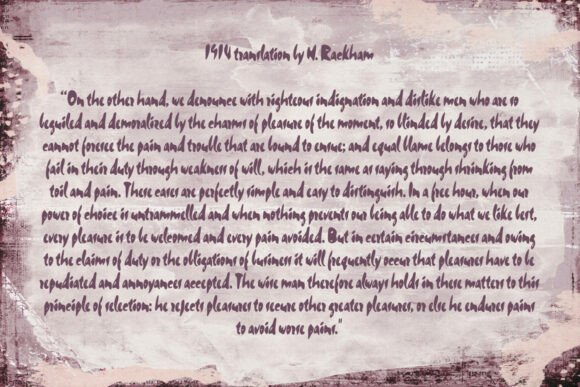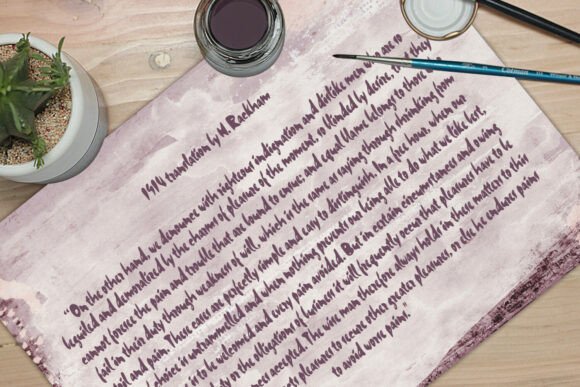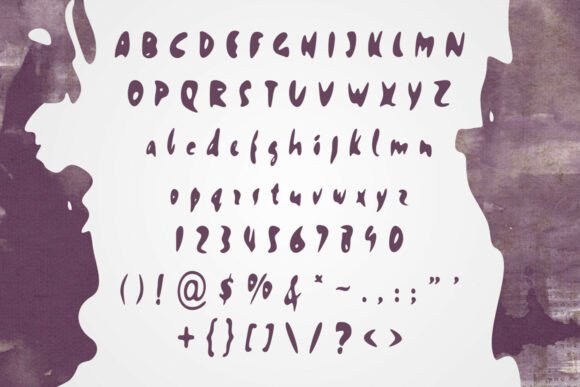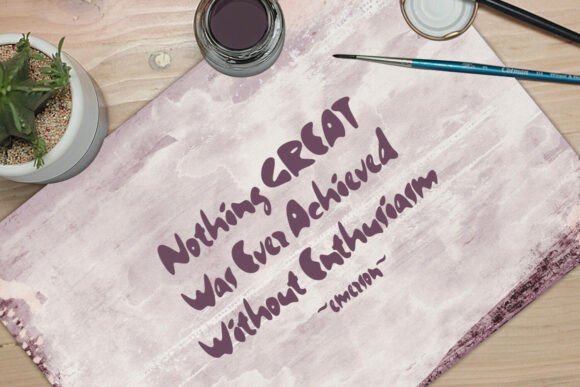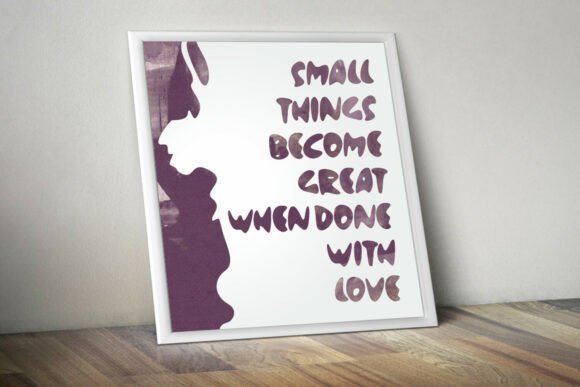
Introducing Bodyguard Font: The Ultimate Bold Display Font for Creative Projects
Are you tired of using the same old fonts for your designs? Look no further! We’re excited to introduce “Bodyguard” – a bold display font that’s sure to bring a fresh and energetic vibe to your creative projects. This playful typeface is perfect for designers and crafters who want to add a bold personality to their work.
What is Bodyguard Font?
Bodyguard is a bold display font that’s designed to make a statement. Its unique and energetic style makes it perfect for a wide range of creative projects, from logos and product displays to fun branding, T-shirts, and other innovative designs. Whether you’re a designer, crafter, or DIY enthusiast, Bodyguard is the perfect font to add to your toolkit.
Key Features of Bodyguard Font
- Bold and Playful Style: Bodyguard has a bold and playful style that’s sure to grab attention. Its energetic vibe makes it perfect for designs that need a personality boost.
- PUA Encoded: This font is PUA encoded, making it easy to access all available glyphs and swashes. This means you can easily customize your designs and add a personal touch.
- Versatile: Bodyguard works beautifully for a wide range of uses, including greeting cards, stationery, invitations, apparel, packaging, posters, and much more.
Bodyguard is perfect for designers and crafters who want to add a bold and energetic touch to their work. Whether you’re creating logos, brochures, or social media graphics, this font is sure to make your designs stand out. Its versatility also makes it perfect for crafters who want to create unique and personalized items, such as handmade cards, gift tags, and iron-on designs.
Use Cases for Bodyguard Font
- Logos and Branding: Use Bodyguard to create bold and eye-catching logos that make a statement.
- Product Displays: Add a touch of personality to your product displays with this energetic font.
- T-Shirts and Apparel: Create unique and stylish T-shirts and apparel with Bodyguard.
- Greeting Cards and Stationery: Add a bold and playful touch to your greeting cards and stationery.
- Posters and Flyers: Use Bodyguard to create eye-catching posters and flyers that grab attention.
Why Choose Bodyguard Font?
So why choose Bodyguard font? Here are just a few reasons:
- Unique Style: Bodyguard has a unique and energetic style that’s sure to make your designs stand out.
- Easy to Use: This font is PUA encoded, making it easy to access all available glyphs and swashes.
- Versatile: Bodyguard works beautifully for a wide range of uses, making it a great addition to your font library.